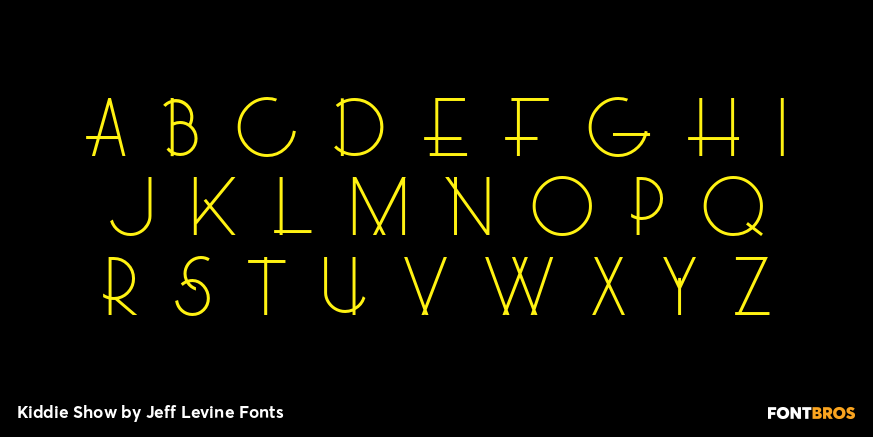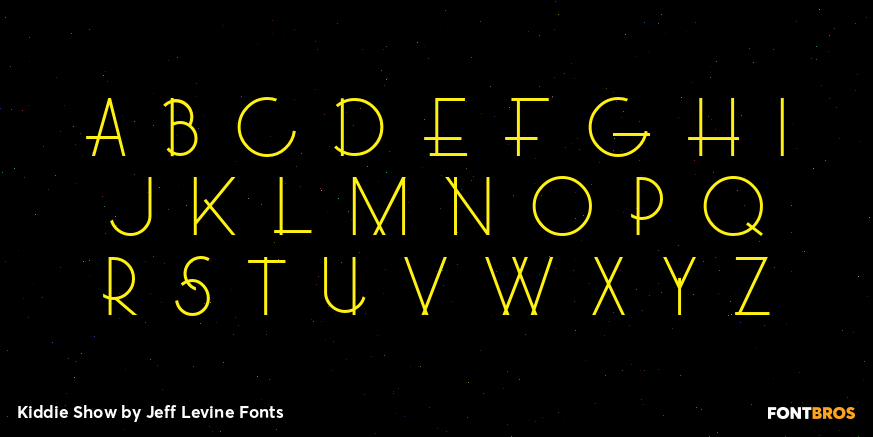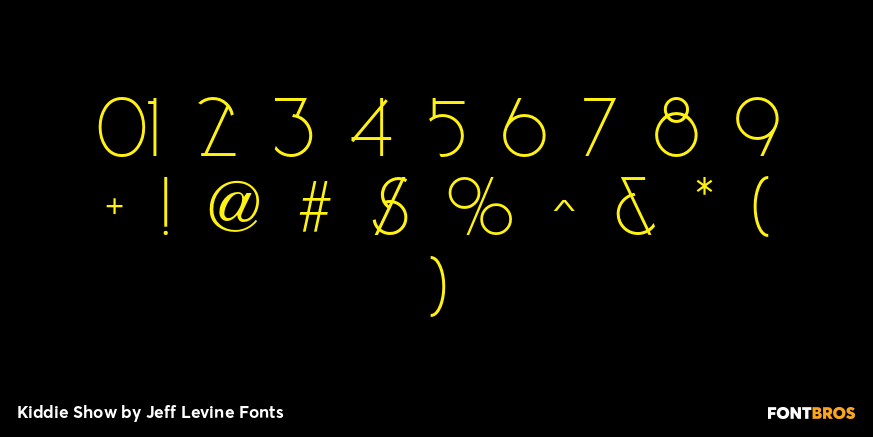
Kiddie Show
The design for Kiddie Show JNL is based on the hand lettering for a piece of sheet music from 1946 entitled 'Wee Marionettes”. While basically an Art Deco-flavored monoline typeface, it contains characters with intersecting lines and assembled parts that give it an eccentric, playful look.
Available in both regular and oblique versions to add a bit of playfulness to your next project.
Kiddie Show JNL Oblique
Kiddie Show JNL Regular